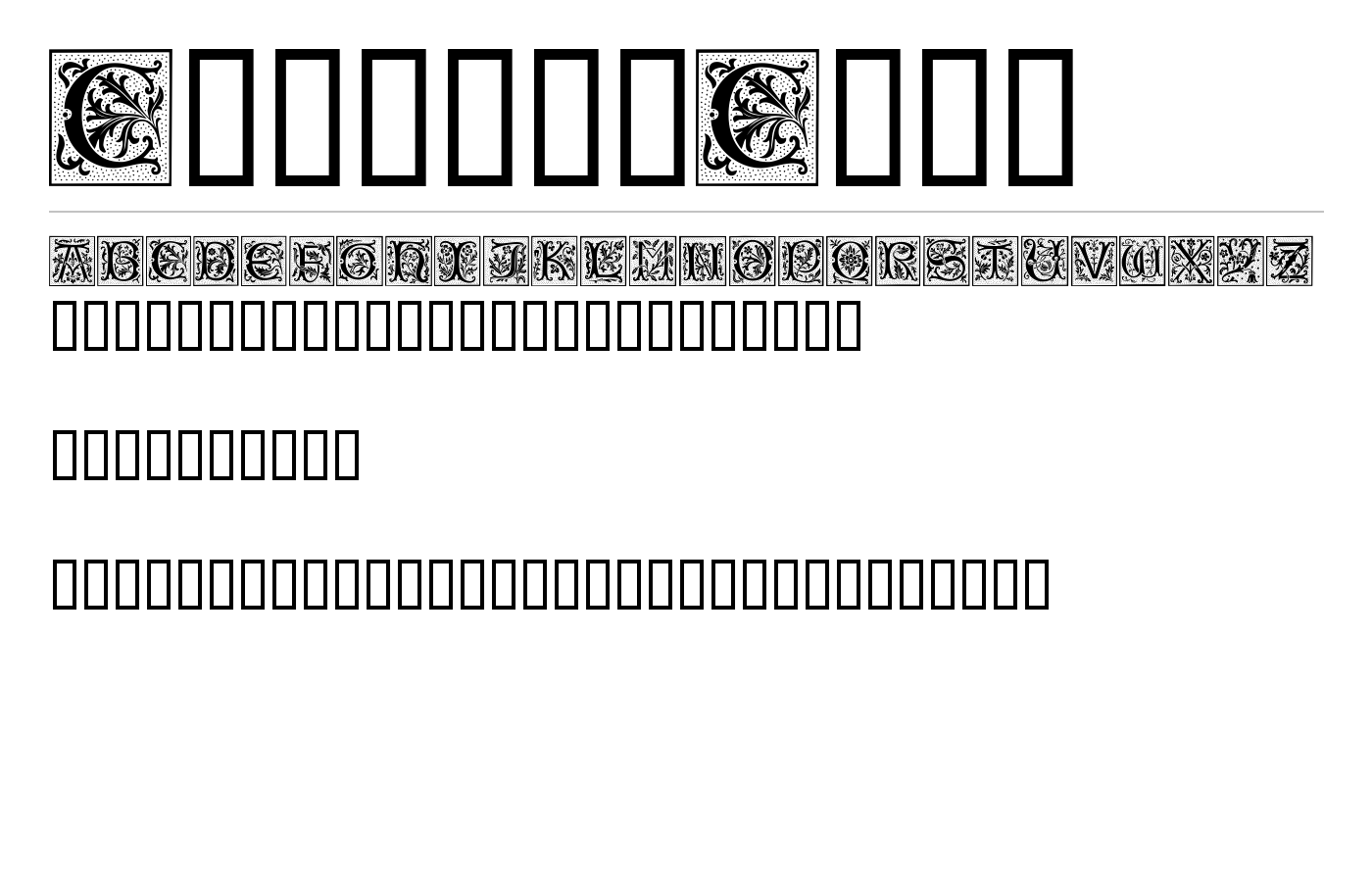
CamelotCaps is an ornate decorative font featuring intricately detailed uppercase letters with a vintage, medieval-inspired style. Its richly embellished letterforms evoke an elegant and historic atmosphere, making it ideal for projects that want to convey luxury, tradition, or a touch of fantasy, such as invitations, logos, or themed headlines. This font works best in large sizes where its fine ornamental details can be fully appreciated.
CamelotCaps Font
About CamelotCaps Font